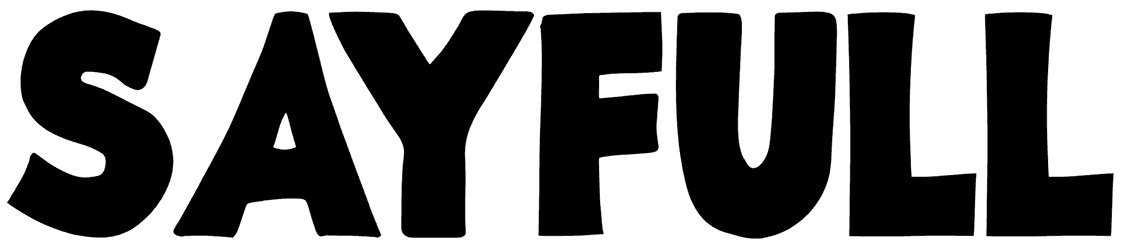
Sayfull Font
Designed byPolah Type
Using the cartoon font Sayfull, you can give your digital projects a unique flair and advance your career. Using this fancy font in your presentation will add a touch of confidence to your talk.
This unique font works wonderfully in a wide range of projects, including comics, advertisements, and clothing design despite lacking lowercase letters at all. Just use this font to get a head start.